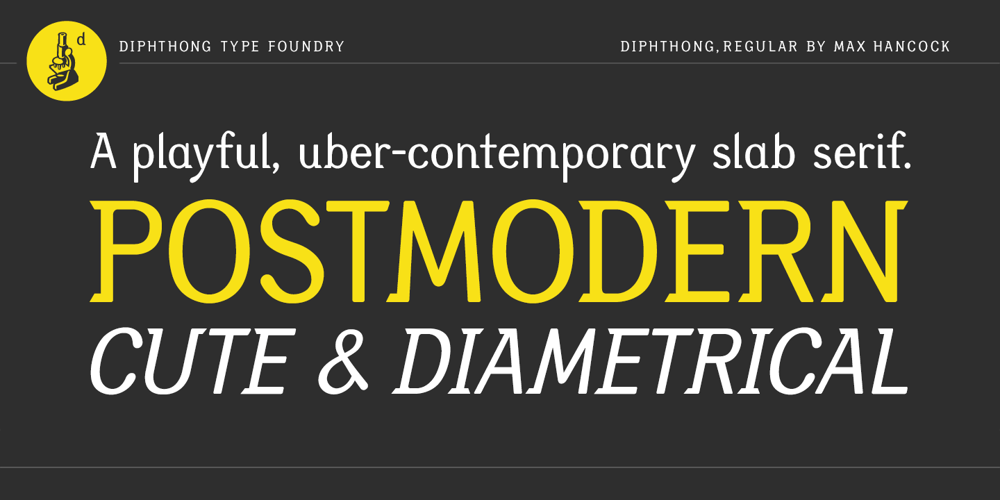
Diphthong Font Family was designed by Max Hancock and published by Diphthong Type Foundry. Diphthong contains 2 styles and family package options. The challenge was to create a single typeface weight that was versatile enough without a large font family, and could be put to use with a variety of media formats, from book text to advertising spreads, all while remaining legible and delightful to read. Originally designed between the years 2002 and 2004, the inspiration for the design originated from the concepts of Stefano Giovannoni’s uber-contemporary industrial designs and architecture. Where to start with such a font design was obvious to Diphthong Regular’s designer, Max Hancock; to create a transitional, slab serif form that was corky and serious, interchangeably. The characteristics of the font followed a postmodern playfulness, popular in many sub-cultures looking for an alternative to the harsher, cut-shape, deconstructivist styles. And, the unique objective behind the design was to make it so that the usual difficult combination of the t and h (hth) in language was legible as well as pleasant to look at, thus the reason for the name. The soft, subtle roundings add a flair of utilitarianism while the cut edge ascenders help to blur the line between cute and diametrical mannerisms.